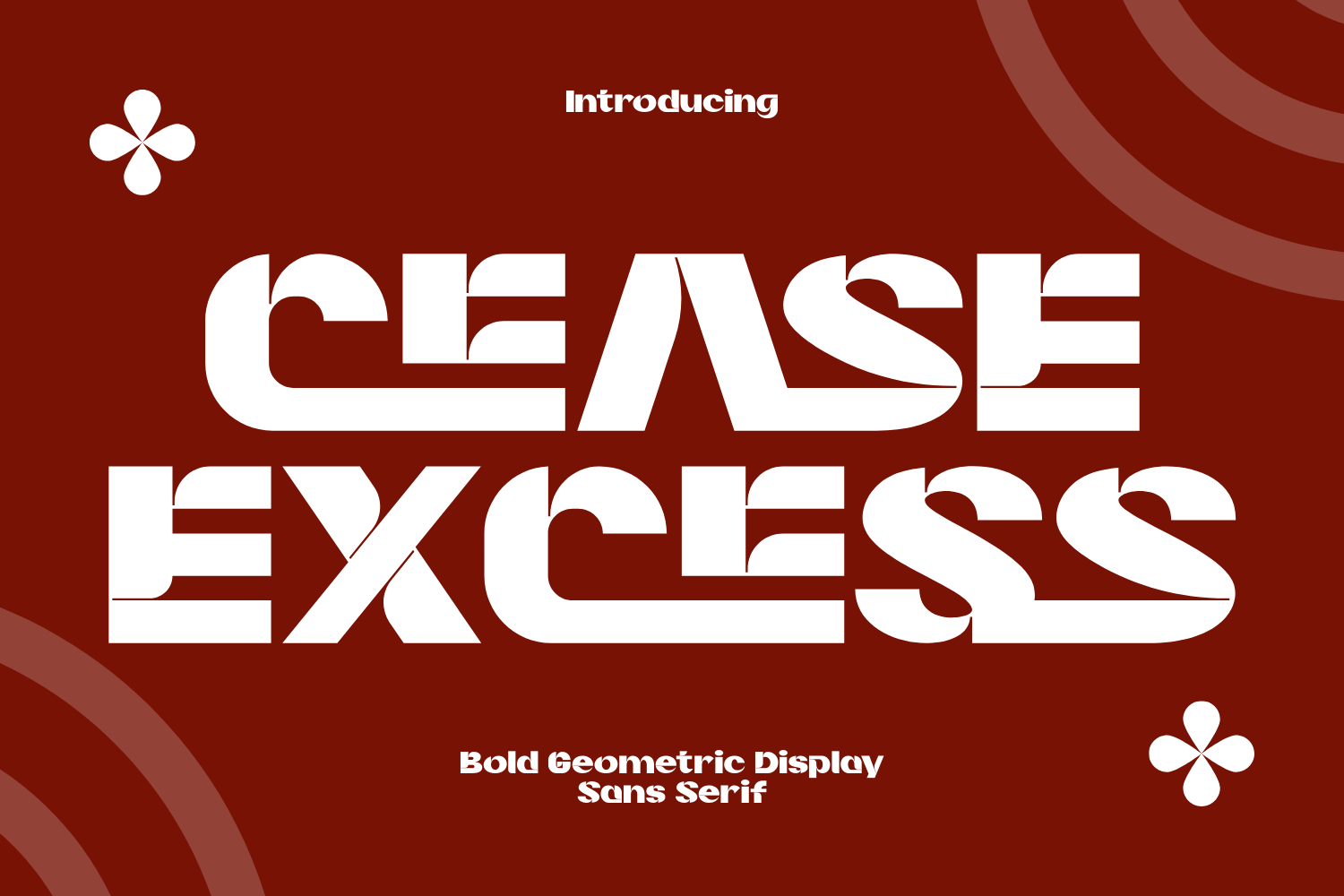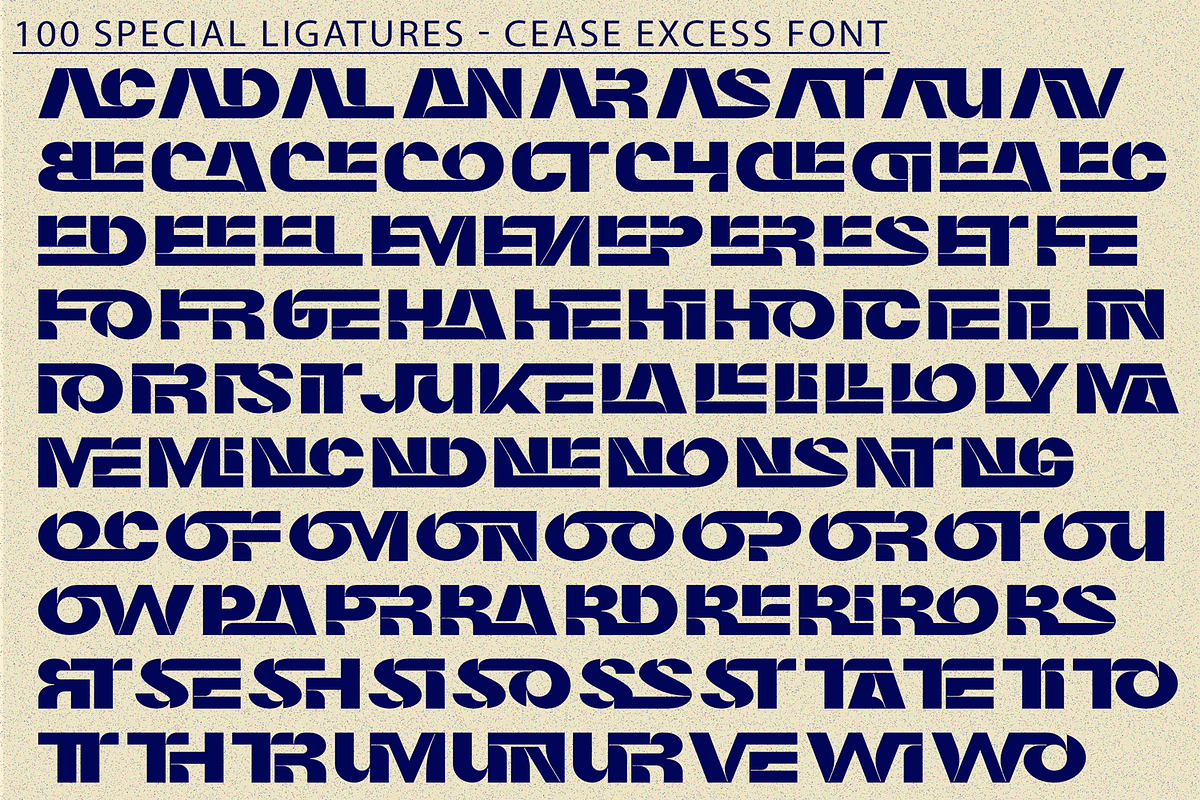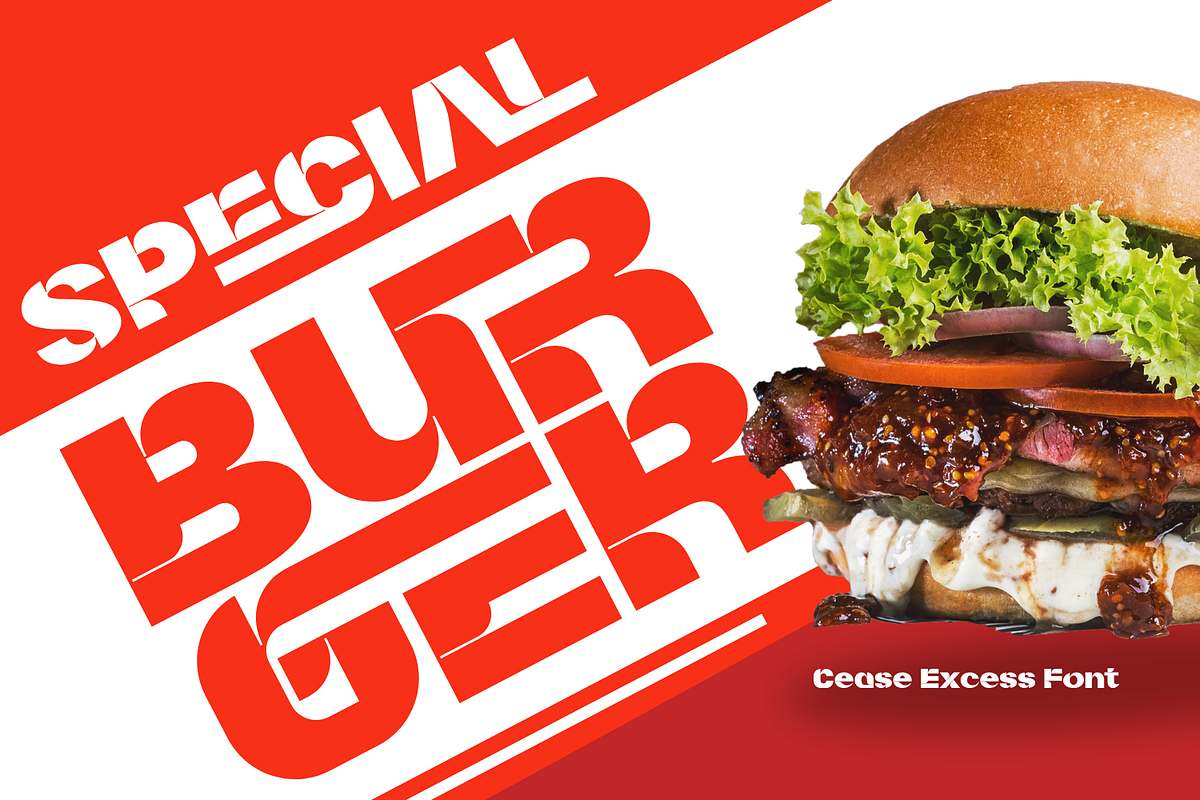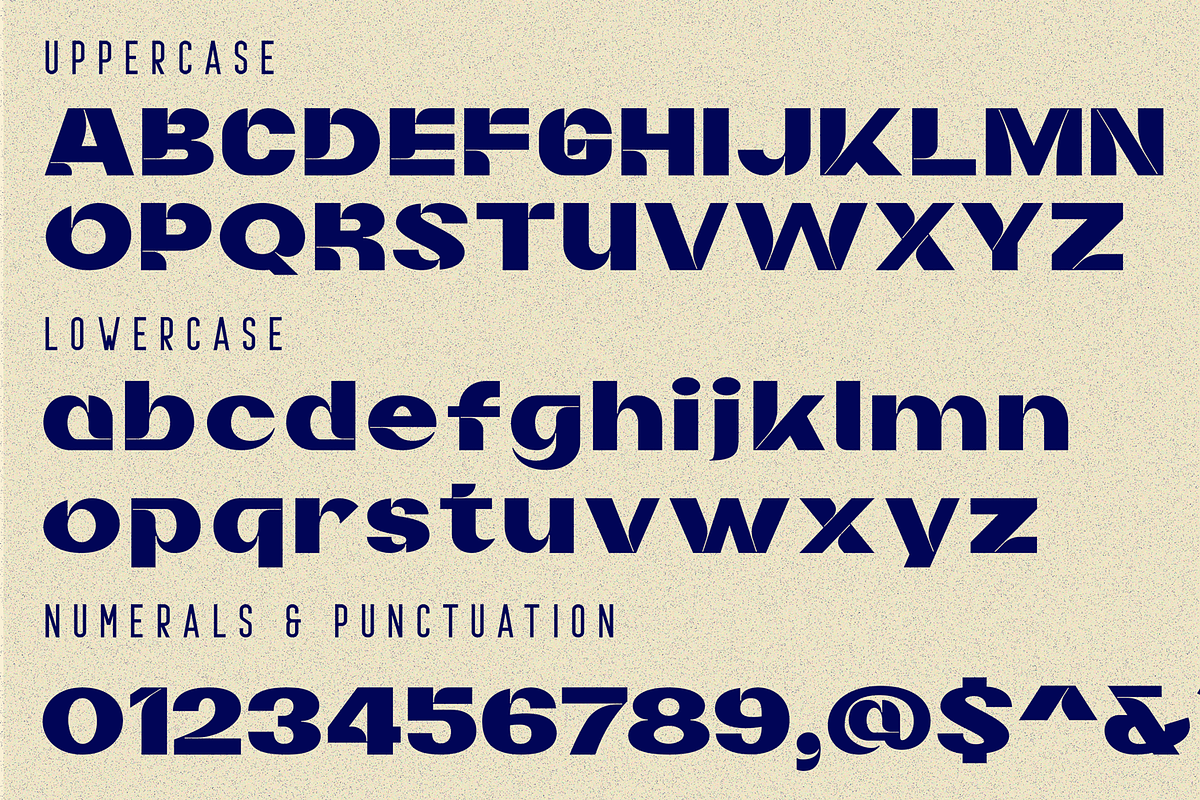
CEASE EXCESS - ULTRA-BOLD FONT
CEASE EXCESS - ULTRA-BOLD FONT, a powerhouse display font that strikes the perfect balance between raw brutalist energy and retro-futuristic precision. Built for those who want their designs to speak loud and clear, this font is a masterclass in weight, form, and unapologetic style. CEASE EXCESS is characterized by its ultra-bold, high-impact silhouettes and sharp, geometric cutouts. Its heavy presence makes it the definitive choice for streetwear branding, experimental poster art, underground music covers, and avant-garde editorial design. Every character is a sculptural piece of art, designed to turn heads and break the mold of traditional typography.
🔤Features:
- Uppercase & Lowercase Letters
- Around 100 Special Ligatures & Alternates
- Accented Characters for multilingual support
🔤About 100 ligatures combined with Stylistic Alternates Font:
AC AD AL AN AR AS AT AU AV BE CA CE CH CO CT DE DI EA EC ED EE EL EM EN EP ER ES ET FE FO FR GE HA HE HI HO IE IC IL IN IO IR IS IT JU KE LA LE LI LL LO LY MA ME MI NC ND NE NG NO NT NS OC OF OM ON OO OP OR OT OU OW PA PR RA RD RE RI RO RS RT SE SH SI SO SS ST TA TE TH TI TO TR TT UM UN UR VE WI WO